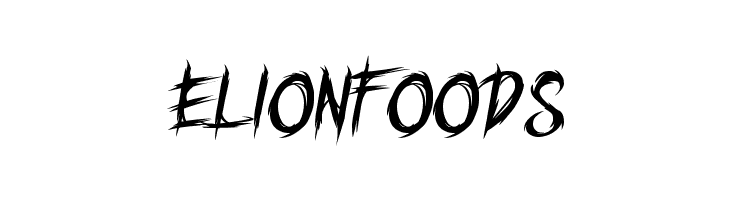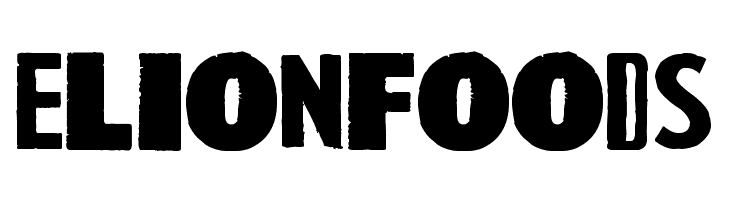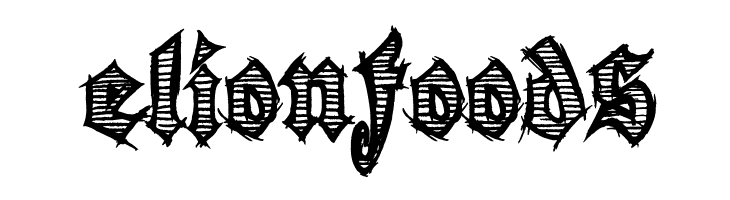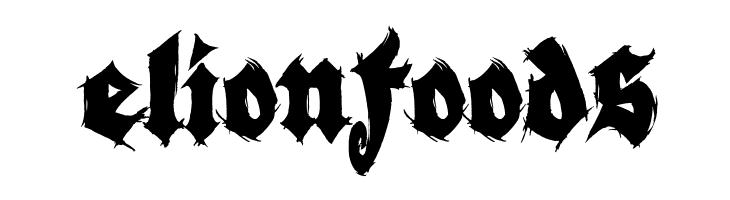
A bold, jagged font with sharp edges and a dynamic, hand-drawn style.
A bold, distressed font with a rugged, vintage appearance.
A bold, vintage-style decorative font with textured, three-dimensional characters.
A gothic, medieval-inspired font with bold, thorn-like embellishments.
A bold, gothic font with intricate, mystical detailing.